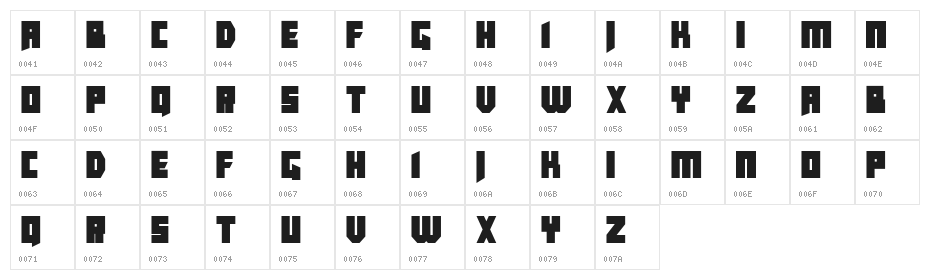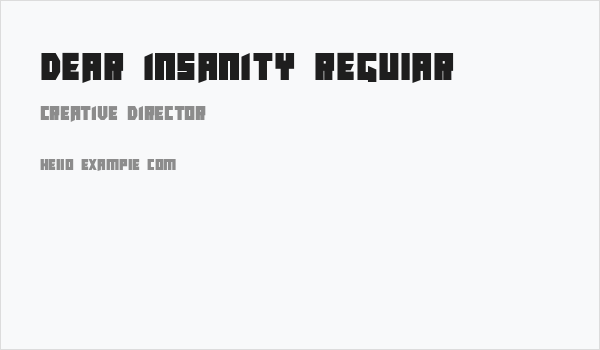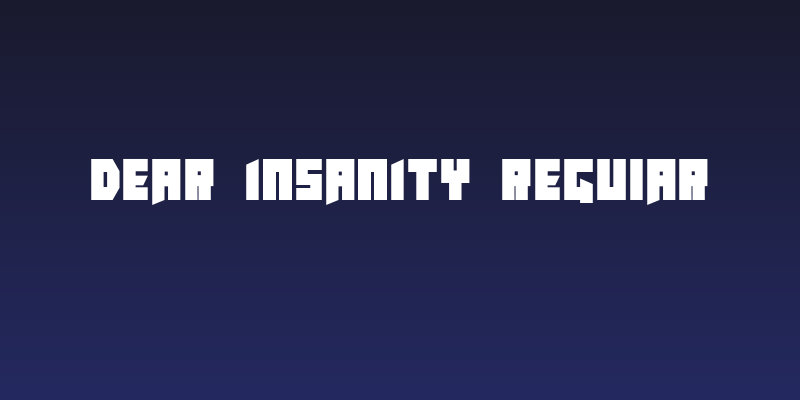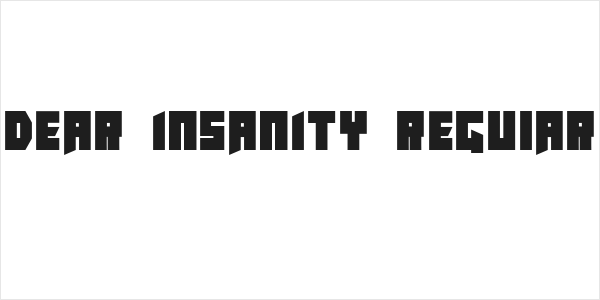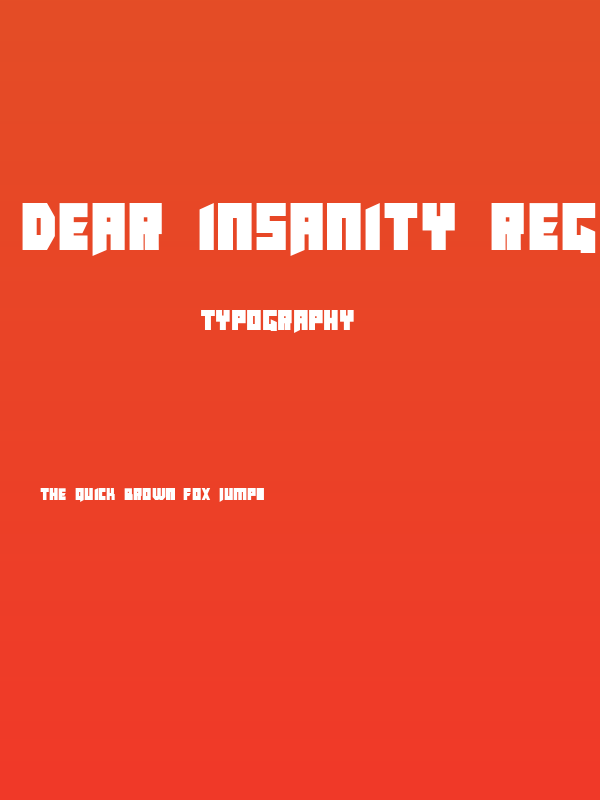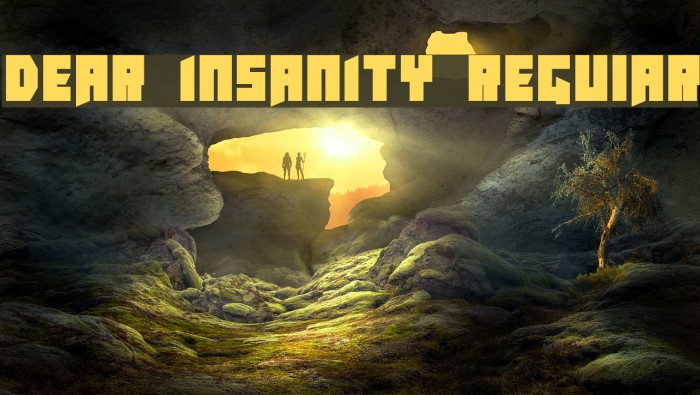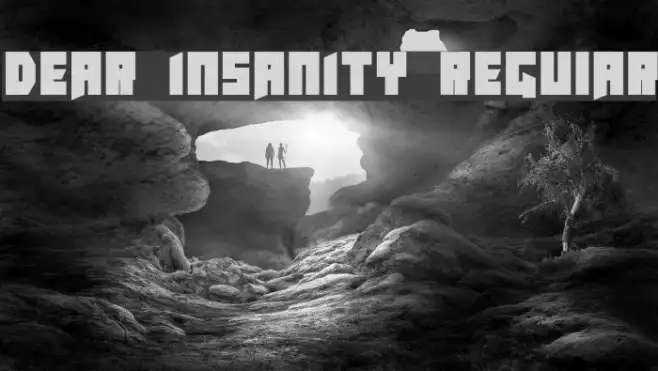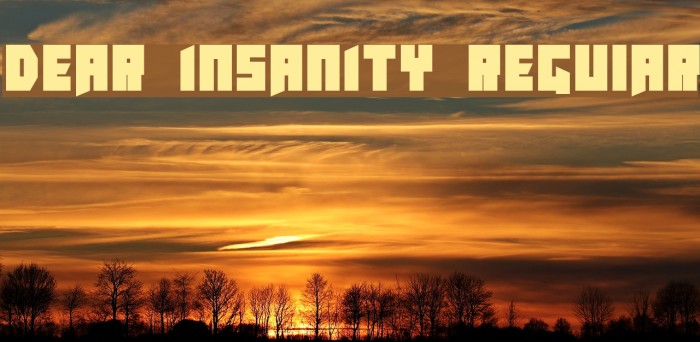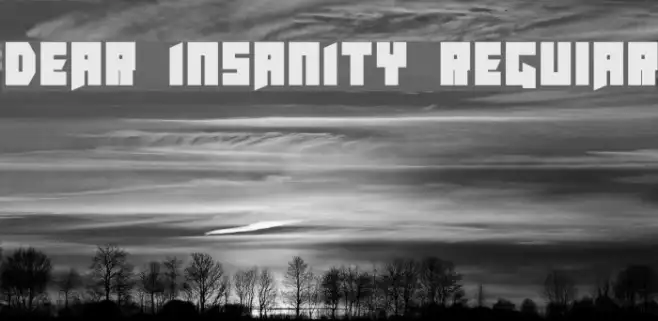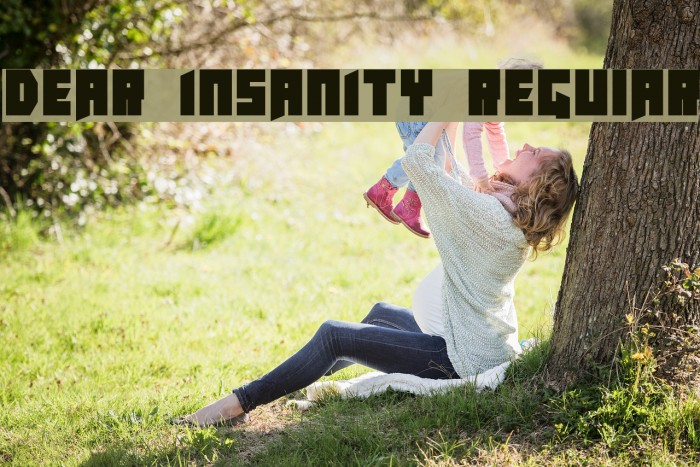
Dear Insanity Regular Font
Dear Insanity Regular Description
This font features a bold, geometric style with a strong presence. The characters are blocky and angular, giving it a modern and edgy appearance. The uppercase and lowercase letters maintain a consistent width, contributing to a uniform look across the text. The numbers and special characters are designed to match the boldness and angularity of the alphabet, ensuring a cohesive aesthetic. The font's sharp edges and solid forms make it highly legible at larger sizes, ideal for impactful designs.
| Proposed Projects | This font is perfect for projects that require a strong visual impact, such as posters, headlines, logos, and branding materials. Its bold style can also be used in digital media, including video game graphics and website headers. |